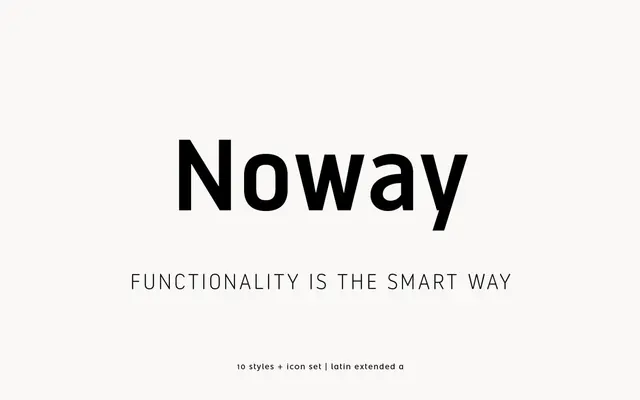
Noway
atipo foundry · Raul Garcia del Pomar, Ismael Gonzalez (atipo) · 2015
Noway specimen from atipo foundry
A functional geometric sans from atipo with five weights, italics, tabular figures, a slashed zero and a matching icon set.
A functional geometric sans by atipo. Ten styles run across five weights from Thin to Bold with matching italics, and the family ships with tabular figures, a slashed zero, fractions, superiors and ordinals along with a Noway Icons companion set. Drawn for interface, data and identity work where the rhythm needs to stay calm at small sizes and hold its shape in tables. Atipo offer Regular and Italic as a free download with the rest of the family on a pay what you want basis.
Atipo describe Noway as a functional geometric sans, supplied with tabular figures, a slashed zero and a companion icon set, with a rounded sibling in Noway Round.